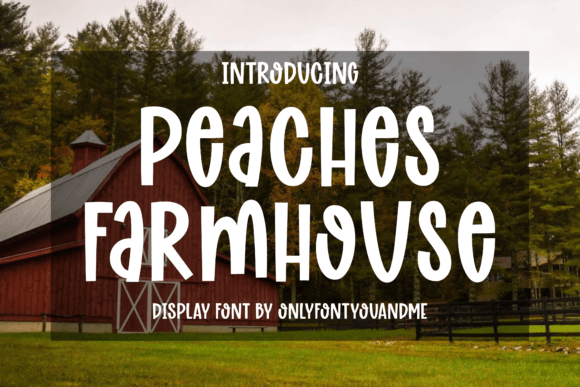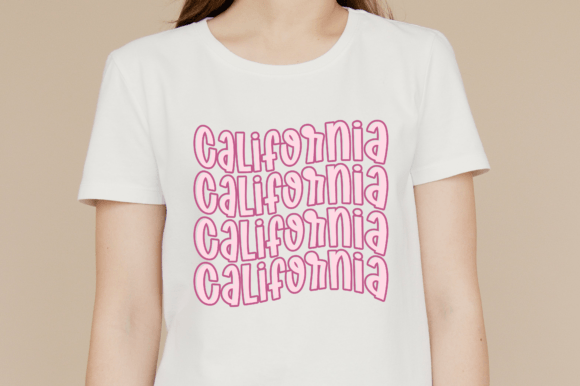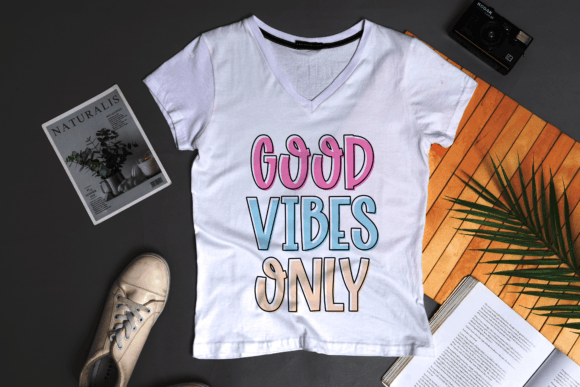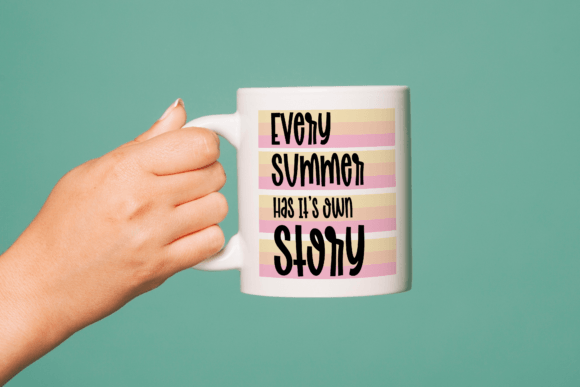
Peaches Farmhouse Font: A Cute Display Font for Cricut & DIY Projects
About the Peaches Farmhouse Font
Get ready to be inspired by Peaches Farmhouse Font, a fresh and dynamic typeface for modern creators. Peaches Farmhouseis a fun and cute display font. It is perfect for your designs such as book covers, posters, packaging, merchandise, logotype, and much more.
Peaches Farmhouse thrives in display contexts such as headlines, posters, and packaging where its playful charm can shine. Its whimsical nature makes it ideal for projects targeting a younger demographic or brands with a friendly, approachable aesthetic. Avoid using it for body text or UI elements; its decorative style is not legible enough for extended reading.
Pairing Peaches Farmhouse with a clean sans-serif like Open Sans for body copy provides excellent contrast and readability. For a more rustic feel, consider pairing it with a classic serif like Garamond. Alternatively, a simple geometric sans-serif, such as Montserrat, offers a modern counterpoint to the font’s hand-drawn quality.
The font projects a friendly, approachable personality, best suited to brands focused on handmade products, children’s products, or projects emphasizing a lighthearted and charming tone.